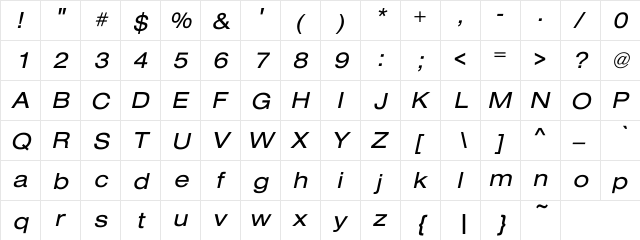
Addington Ext Oblique Regular
Addington Ext Oblique is a composed and adaptable typeface that performs quietly and consistently across a wide range of design contexts. Its italic angle brings a sense of urgency and motion to the letterforms.
Pro Tip: Try Addington Ext Oblique for annotation and caption copy alongside an upright companion — the contrast in angle creates a dynamic but ordered typographic system.